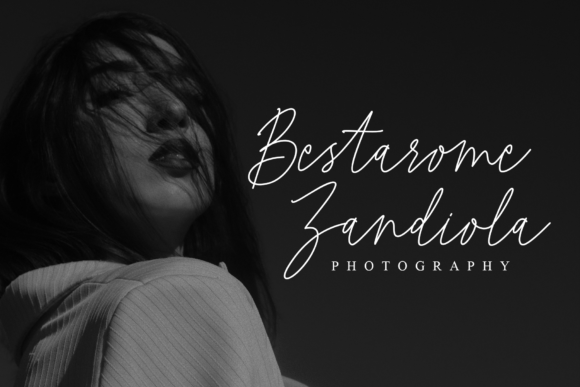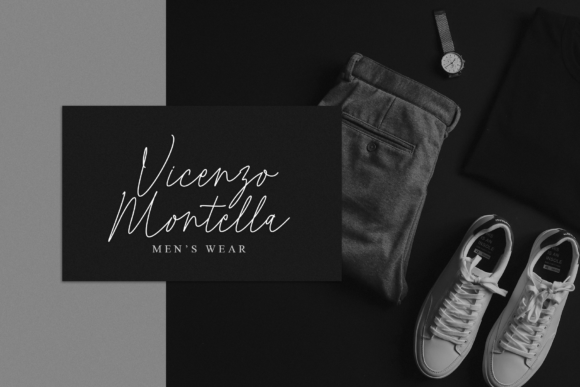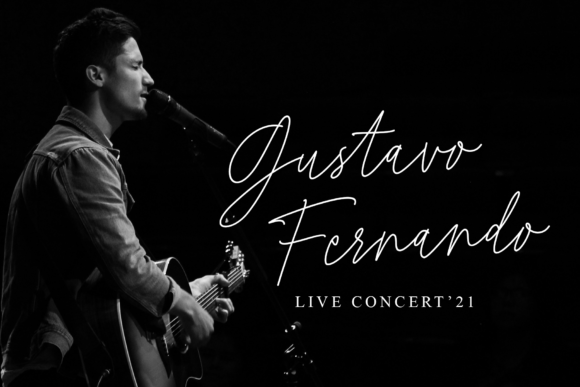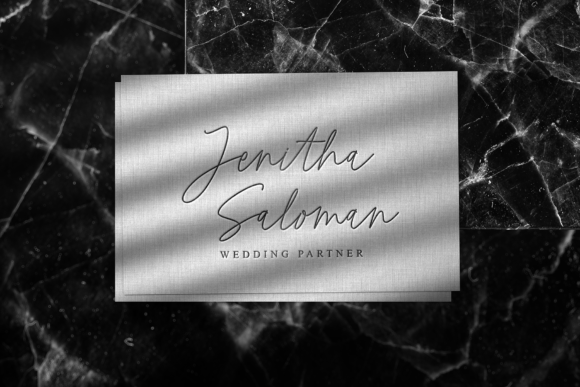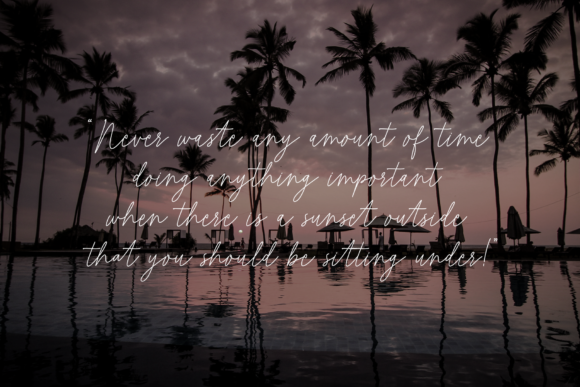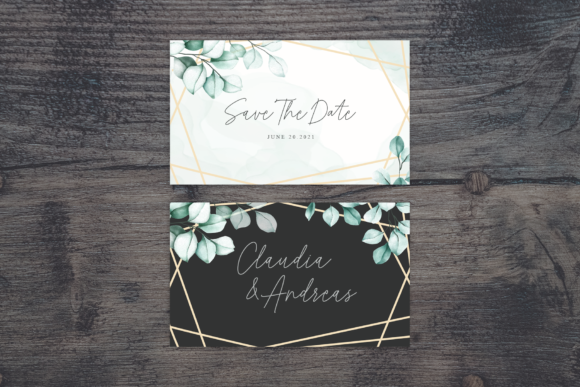
Introduction to Photomark Signature Font
As a designer, have you ever found yourself stuck on a project, searching for that perfect font to give it a personal touch? It’s a common dilemma, but what if I told you that I’ve discovered a game-changer – the Photomark Signature Font. This stunning font is a must-have in your design resource arsenal, and I’m excited to share its features with you.
| 👤 Author | MJB Letters |
Imagine creating a beautiful wedding invitation with a delicate, handwritten touch. Or, picture a thank you card that exudes warmth and personality. The Photomark Signature Font makes it all possible, with its elegant, cursive design that’s perfect for adding a human touch to your designs. Whether you’re working on a high-end creative project or a simple greeting card, this font is sure to elevate your design to the next level.
With its transparent background and free download option, the Photomark Signature Font is a valuable asset for designers. Its high-quality design ensures that your projects will stand out from the crowd, and its versatility makes it suitable for a wide range of applications, from logos to business cards. So, let’s dive in and explore the world of Photomark Signature Font together.
Key Features of Photomark Signature Font
- High-quality font design for a professional look, ideal for business and creative projects.
- Unique characteristics: A modern, sleek design with a touch of elegance, perfect for creating a lasting impression.
Honest Review: Photomark Signature Font
As a designer, I’m always on the lookout for high-quality design resources that can elevate my creative projects. Recently, I had the chance to work with the Photomark Signature Font, and I’m excited to share my honest review with you.
Here’s what works well:
- ✨ High-quality design: The Photomark Signature Font has a clean and sophisticated design that’s perfect for a variety of creative projects.
- ⚠️ Limited character set: The Photomark Signature Font has a relatively small character set, which may limit its use in certain projects.
- ⚠️ Not suitable for large-scale use: While the font is great for smaller projects, it may not be the best choice for large-scale designs or commercial use.
Overall, I’m impressed with the Photomark Signature Font, and I think it’s a great addition to any designer’s toolkit. While it may have some limitations, its high-quality design and free download make it an excellent choice for creative projects.
The Photomark Signature Font is a unique and creative design resource that can elevate your personal or professional branding. With its transparent background and high-quality design, it’s perfect for various creative projects.
Getting the Most Out of the Photomark Signature Font
To get the most out of the Photomark Signature Font, use it in conjunction with other design elements to create a cohesive and visually appealing design. Experiment with different font sizes, colors, and arrangements to find the perfect balance.
The Photomark Signature Font is perfect for:
- Personal branding and logo design
- Business cards and stationery
- Social media graphics and advertising
- Wedding invitations and event design
Is the Photomark Signature Font suitable for high-quality print projects?
Yes, the Photomark Signature Font is designed to meet high standards of quality and legibility, making it an excellent choice for print projects. The font is optimized for use at a range of sizes and resolutions, ensuring that it looks crisp and clear in both online and offline applications. Whether you’re working on a business card, brochure, or other marketing materials, the Photomark Signature Font is a great choice for your creative project.